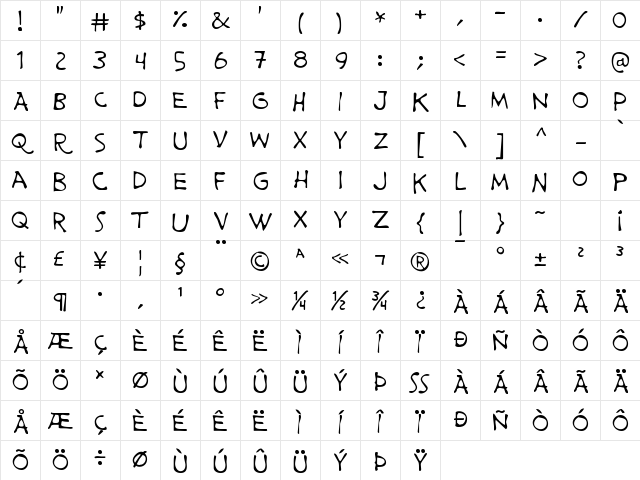
Prime Minister of Canada Regular
Design Context for Prime Minister of Canada
Prime Minister of Canada is a composed and adaptable typeface that performs quietly and consistently across a wide range of design contexts.